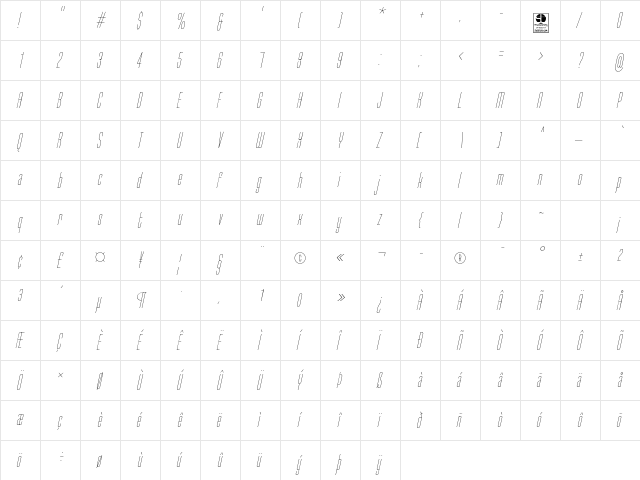
Typo-Longest Thin Demo Italic Font Preview
| Foundry | StudioTypo |
| Designer | Mehmet Abac |
Design Context for Typo-Longest Thin Demo Typeface
Typo-Longest Thin Demo takes a measured approach to typography — its balanced proportions and neutral character make it a reliable workhorse for both digital and print work. The slanted form adds forward momentum and visual energy. The delicate stroke weight brings airiness and refinement to layouts.
Pro Tip: Try Typo-Longest Thin Demo for annotation and caption copy alongside an upright companion — the contrast in angle creates a dynamic but ordered typographic system.